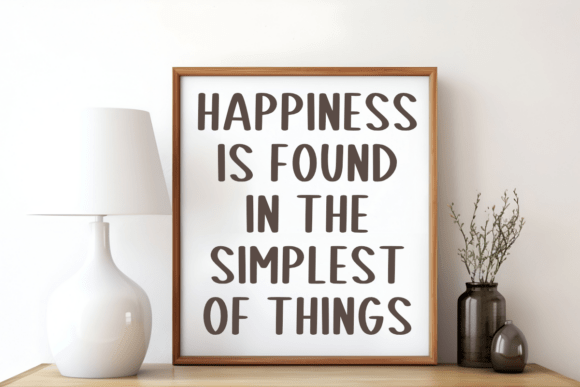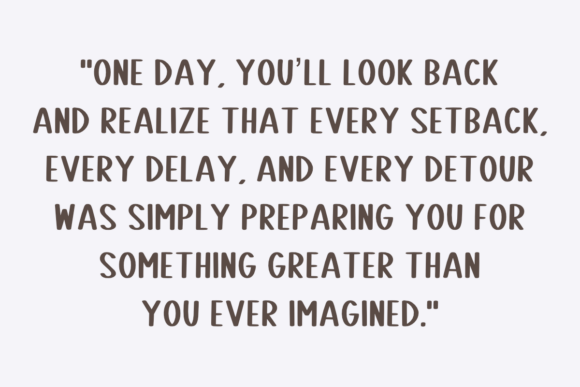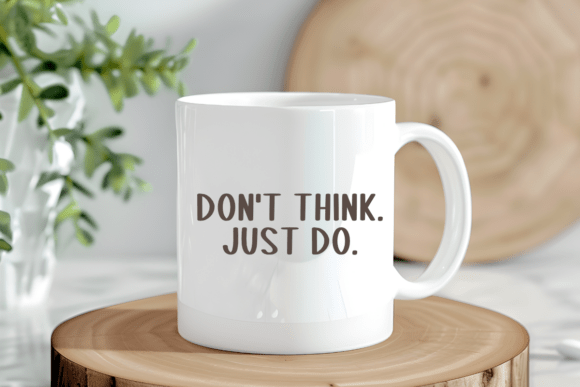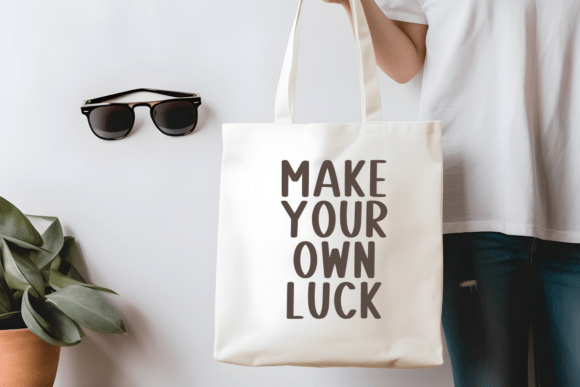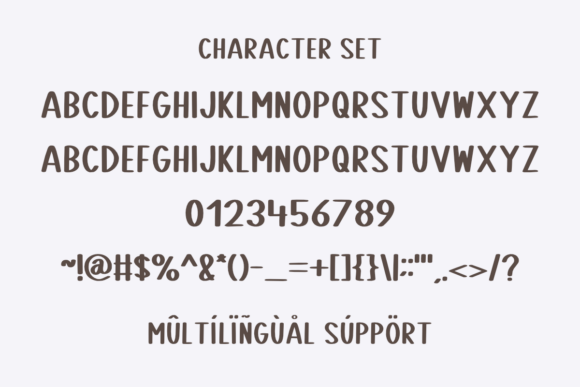
Introducing Feel Calm Font: The Perfect Addition to Your Design Projects
Are you looking for a font that can add a touch of charm and friendliness to your designs? Look no further than Feel Calm Font! This bold yet whimsical handwritten font is perfect for a variety of design projects, from kids’ projects to quotes, posters, social media graphics, and more.
What Makes Feel Calm Font So Special?
Feel Calm Font is a unique and eye-catching font that features rounded curves and clean letterforms. Its playful and cheerful design makes it perfect for designs that need a friendly and approachable feel. Whether you’re working on a project for kids or creating a poster for a social media campaign, Feel Calm Font is sure to bring a smile to your audience’s faces.
Key Features of Feel Calm Font
- Bold yet whimsical design: Feel Calm Font has a bold and confident design that’s perfect for making a statement.
- Rounded curves and clean letterforms: The font’s rounded curves and clean letterforms give it a friendly and approachable feel.
- Perfect for kids’ projects: Feel Calm Font is a great choice for kids’ projects, such as children’s books, educational materials, and more.
- Great for quotes and posters: The font’s bold and playful design makes it perfect for quotes and posters that need to grab attention.
- Ideal for social media graphics: Feel Calm Font is a great choice for social media graphics, such as Facebook posts, Instagram stories, and more.
Why Choose Feel Calm Font?
There are many reasons why designers and crafters choose Feel Calm Font for their projects. Here are just a few:
- Easy to read: Despite its playful design, Feel Calm Font is easy to read and understand, making it perfect for designs that need to communicate a message.
- Versatile: Feel Calm Font can be used for a wide range of design projects, from kids’ projects to quotes and posters.
- Fun and engaging: The font’s playful design is sure to add a touch of fun and engagement to your designs.
How to Use Feel Calm Font in Your Designs
Using Feel Calm Font in your designs is easy! Here are a few tips to get you started:
- Pair it with other fonts: Feel Calm Font pairs well with other fonts, such as sans-serif fonts and script fonts.
- Use it for headings and titles: The font’s bold design makes it perfect for headings and titles.
- Add some color: Feel Calm Font looks great in a variety of colors, so don’t be afraid to experiment and find the perfect hue for your design.
Feel Calm Font is a unique and eye-catching font that’s perfect for designers and crafters who want to add a touch of charm and friendliness to their designs. With its bold yet whimsical design, rounded curves, and clean letterforms, it’s perfect for a wide range of design projects. Whether you’re working on a kids’ project, creating a poster, or designing a social media graphic, Feel Calm Font is sure to bring a smile to your audience’s faces.